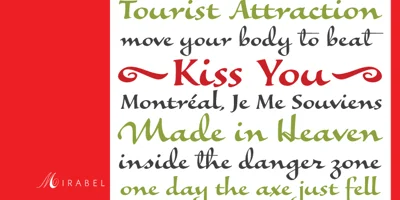
Mirabel Font
Mirabel Font is perfect for magical storytelling projects, enchanting children's books, fantasy game interfaces, mystical branding, fairy tale illustrations, whimsical wedding invitations, dreamy spa marketing, and magical event decorations.
This font is exciting because it captures the wonder of magical realms with enchanting elegance and mystical charm. Mirabel Font features graceful letterforms with subtle magical flourishes that evoke fairy tale dreams and mystical adventures, making it ideal for projects that require enchanting beauty and otherworldly sophistication.
The Mirabel Font family includes regular, light, bold, and ornamental variants, along with magical alternates and enchanting ligatures that enhance its mystical character. Each weight maintains the font's whimsical aesthetic while providing different levels of magical expression for various fantasy and enchantment design applications.
Whether you're developing magical brand identities, creating captivating storybook materials, or designing dreamy fantasy campaigns, Mirabel Font delivers exceptional wonder and mystical appeal. Its distinctive enchanting style makes it an excellent choice for designers seeking to add fairy tale magic and mystical elegance to their projects. The font's versatility extends from fantasy gaming interfaces to magical event signage, ensuring consistent performance across all enchanted applications. With its thoughtfully crafted letterforms and magical proportions, this typeface provides professional results that transport audiences to magical worlds and establish enchanting brand presence with its unmistakable mystical character and fairy tale charm.